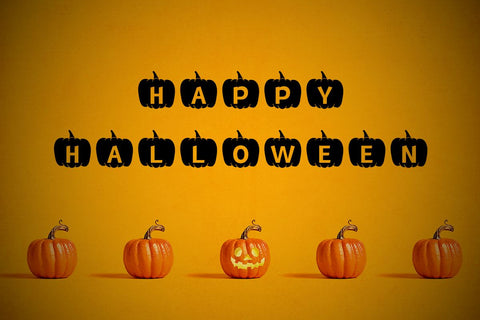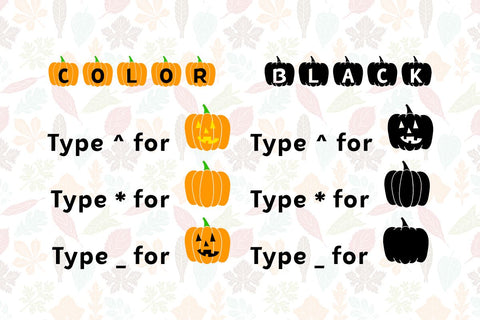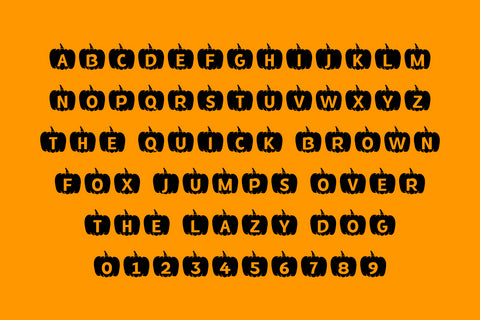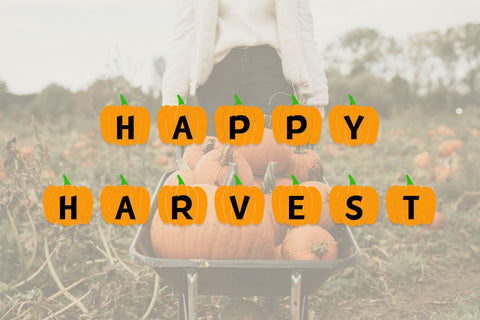
MF Fall Pumpkins
Fall Pumpkins is a super festive font perfect for your Autumn projects! It is perfect for creating cute monogramed mugs, seasonal banners, sublimation projects and so much more!